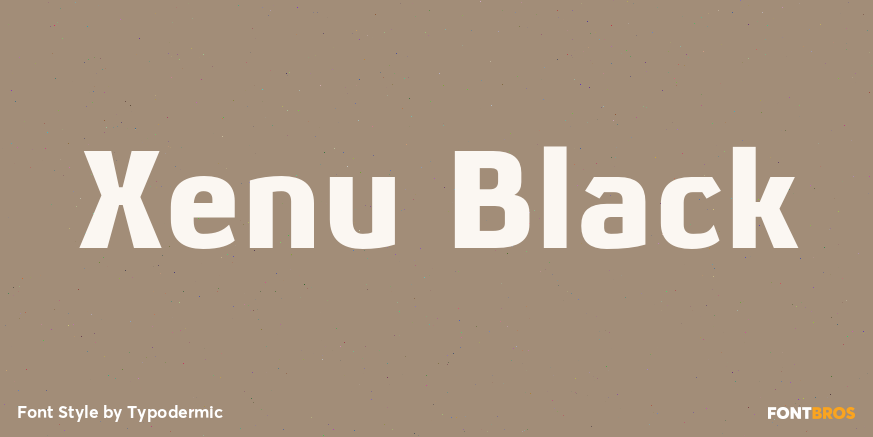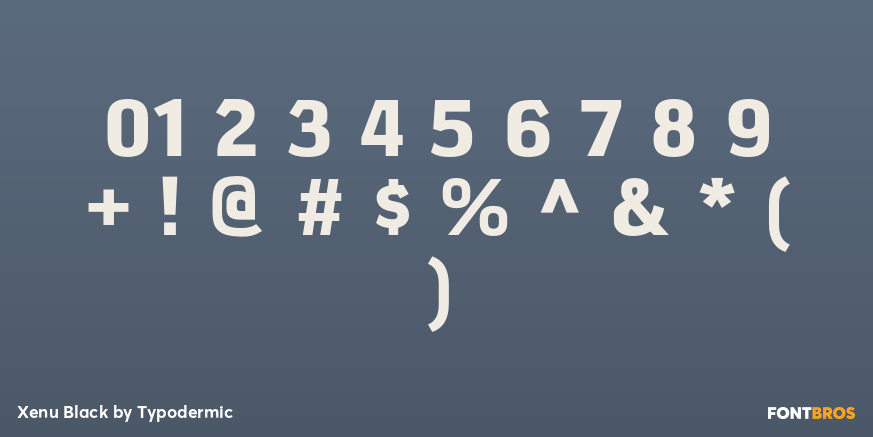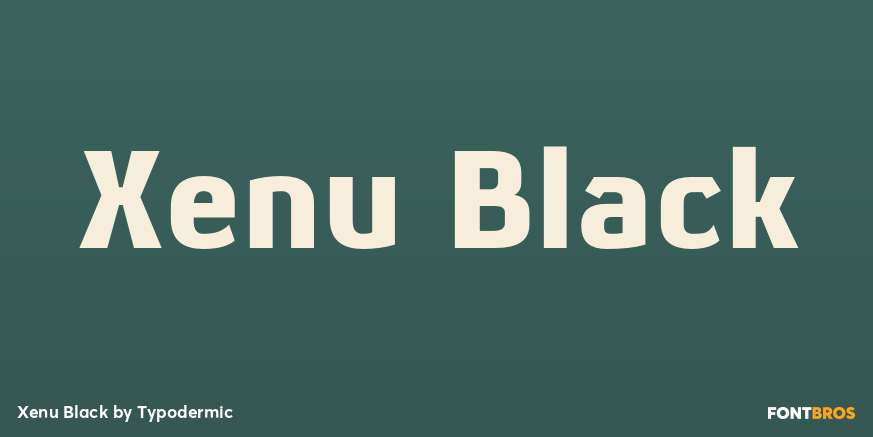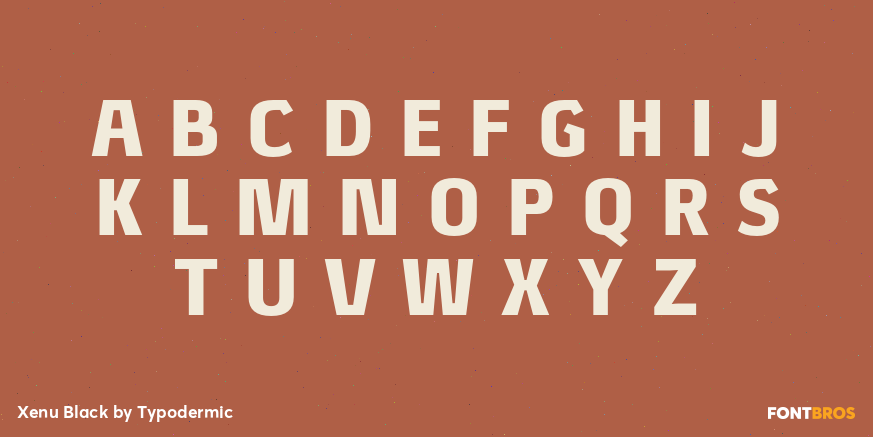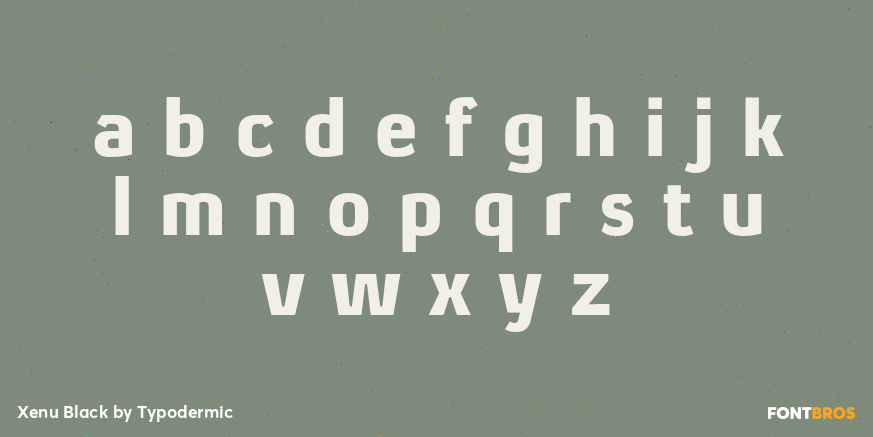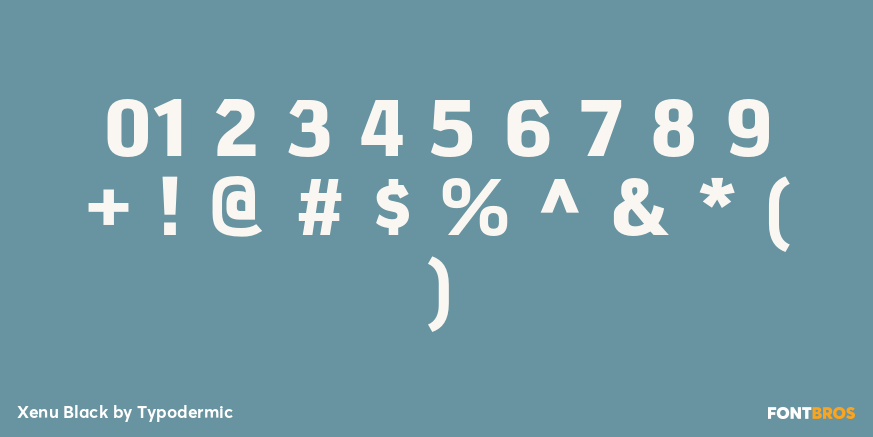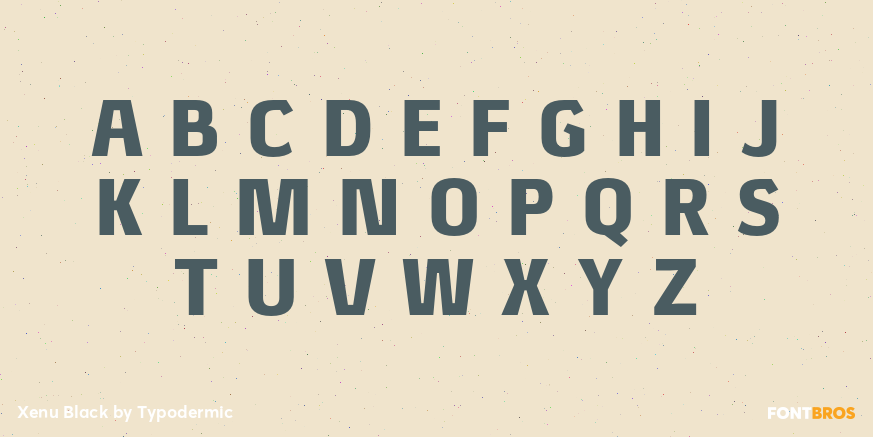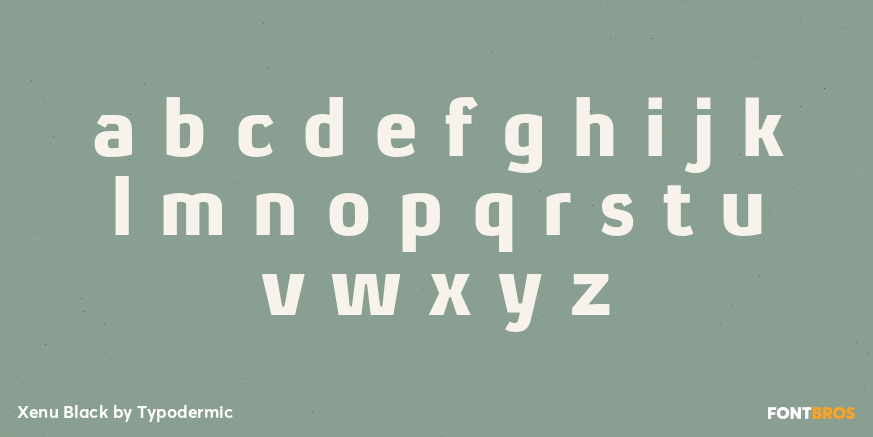
Xenu Black
Buy NowEngineered products rarely live on one surface. A piece of equipment may need a name on its enclosure, identifiers across modules and cabinets, headings on an operator display, labels in diagrams, maintenance instructions, specification sheets, and launch graphics. Neutral interface typography can handle the information but leave the product identity anonymous; an overtly futuristic display face may look convincing on the machine and awkward everywhere else.
Xenu is built for the space between those extremes. Its compact geometric forms, upright proportions, sharp terminals, and constructed rhythm give technical information a recognizable visual character without making every label look like a title sequence. Mixed-case text remains practical for instructions and supporting copy, while the heavier styles can carry equipment families, platform names, and exhibition graphics.
Grid-scale battery storage and power electronics are a particularly strong fit. Battery-energy-storage containers, inverter families, power-conversion systems, switchgear cabinets, battery racks, and substation modules all generate layers of typography beyond the product name itself. Xenu can move from enclosure markings and module identifiers into monitoring dashboards, commissioning diagrams, specification sheets, and service documentation while keeping the system visually related.
The same advantage applies to the infrastructure surrounding high-density AI computing. Liquid-cooling systems, cooling distribution units, rack manifolds, UPS equipment, power-distribution hardware, transformers, and monitoring systems need model names and cabinet labels as well as control-screen headings, installation diagrams, and maintenance material. Xenu gives those different surfaces an engineered tone without depending on decorative circuit-board or science-fiction conventions.
Semiconductor manufacturing equipment creates an even denser information environment. Wafer-processing tools, inspection systems, metrology equipment, advanced-packaging machinery, and cleanroom modules require equipment-family names, station identifiers, control panels, process diagrams, maintenance instructions, and technical presentation graphics. Xenu is compact enough for real hardware and structured enough to make operational typography feel like part of the machine rather than an unrelated layer added afterward.
Industrial automation and machine vision extend the same role into factory systems. Vision controllers, sensor modules, robotic cells, PLC equipment, inspection stations, industrial edge-computing hardware, and automated material-handling systems all rely on short technical labels and repeated information hierarchies. Xenu can handle controller names, calibration screens, equipment labels, wiring diagrams, and service graphics without turning routine information into a display effect.
Scientific and field instrumentation offer another natural setting. Lidar systems, spectrometers, surveying equipment, environmental monitors, remote-sensing hardware, and laboratory instruments need names, control labels, data-display headings, field-case markings, and technical documentation. Xenu can maintain a consistent technical character across those roles while remaining restrained enough for information that has to be read rather than merely noticed.